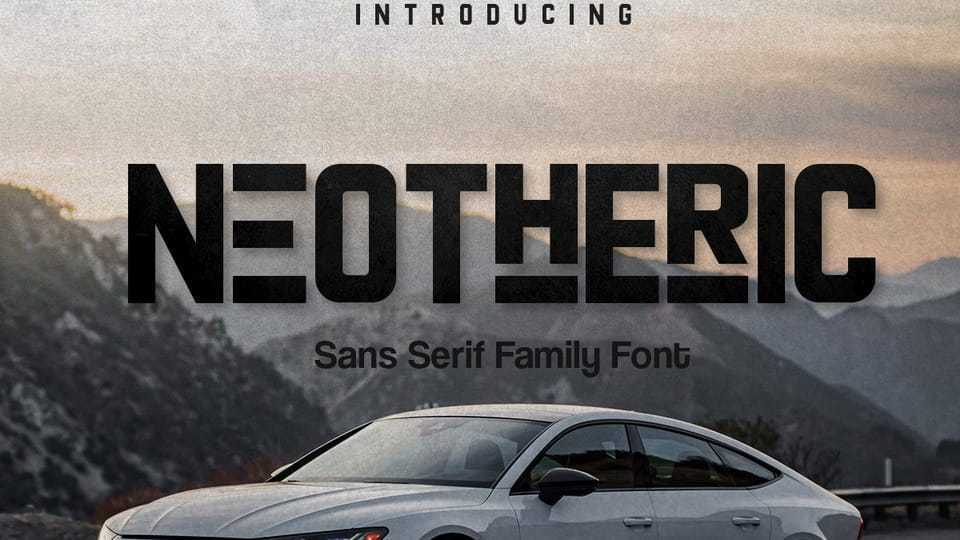
Download Neotheric font, a powerful and sophisticated sans serif typeface. And has 4 alternates type models that you can use according to your needs.
Designer: Saystudio